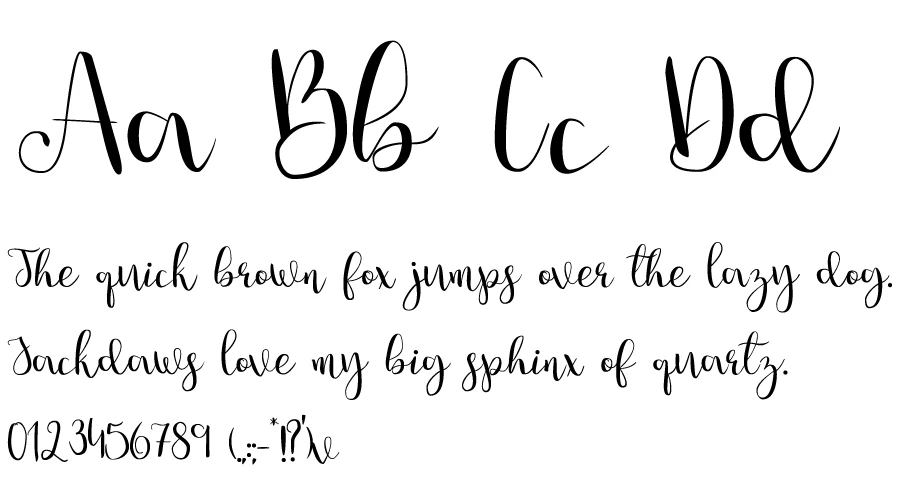
Julias Dream script Font is a lovely script and handwritten Font that I’m giving to you. It’s an excellent choice for trademark layout. If that’s the case, you may produce stunning designs using a top-notch font like mix palmer and make your consumers happy at the same time as part of your offers. If you take a place where you particularly appreciate that typeface, the experience in mind loses to percent it on social networking websites with friends.
The usage of this as a default typeface in developing a game or a website template is also a viable option. The pretty Font comes in two formats: TTF and OTF. A further fantastic feature is that the Font is compatible with Windows, Apple/Mac OS X, Linux, Cricut, Silhouette, and other cutting machines required for various tasks. The Font is designed and shared by Dima Evans. This typeface has it all starting with uppercase, lowercase, numeric, and some special characters and alternatives.
The Font is excellent for creating stunning and appealing coffee shop wallpapers. This typeface can also be used in coffee shops and other restaurant menus. You can also use the Font to create stunning menu covers. You may easily use this typeface to create lovely handcrafted work.